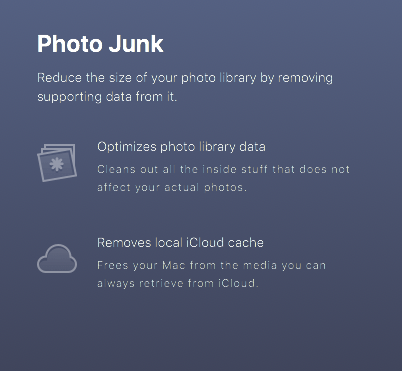
So I just got my Mac Mini 2018 and hooked it up to my Asus ROG PG348Q 3440 x 1440 monitor, and was very surprised by how bad the font rendering is compared to Windows.
I have both computers hooked up via Displayport and Windows 10 is crystal clear, while on the Mac it looks ok where font smoothing is applied, but Clean My Mac for example looks like this:
Didn't help, I also tested all the different font smoothing options.
Is there anything else I can do, other than getting a 4k monitor? It shouldn't look this bad?
I had an older Asus monitor that looked awful on Sierra and High Sierra. I had to install a patch, put it worked. Something else I tried, learned on this forum, was this:
defaults -currentHost write -globalDomain AppleFontSmoothing -int 2
-int 2 can be changed to 1,2,3,0
Didn't fix it either unfortunately 🙁 It only made my monitor go to 60Hz instead of 100hz. I guess Windows' ClearType rendering is just a lot clearer than Mac OS if you don't have a 4k HiDPI monitor. Bummer.